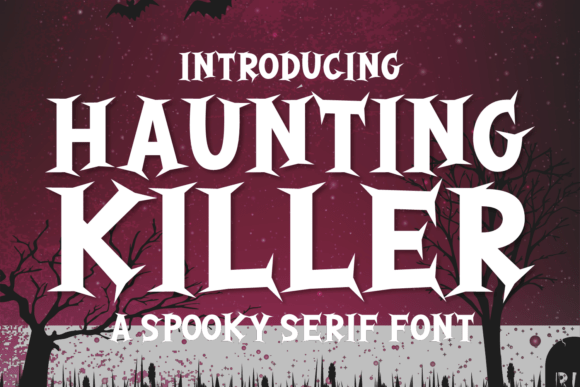
Unleash the Spooky Charm of Your Designs
Remember the thrill of staying up late as a child, pouring over a favorite book under the dim glow of a nightlight? The words on the page seemed to come alive, transporting you to a world of wonder and magic. As a designer, you want to recreate that sense of enchantment in your work, don’t you?
That’s where the Haunting Killer Font comes in – a design delight that combines spooky charm and whimsical creativity to add an extra layer of expressiveness to your projects. Whether you’re designing book covers, comics, or posters, this versatile font is sure to leave a lasting impression. With its quirky flair, the Haunting Killer Font is a must-have addition to any designer’s toolkit, helping you to create projects that truly dazzle and stand out.
Haunting Killer Font Key Features
- Font Styles: Haunting Killer Font includes 6 unique font styles: Regular, Italic, Bold, Bold Italic, Shadow, and Outline.
- Unique Characteristics: The font features a haunting and eerie design, perfect for horror-themed projects, with unique characters and ligatures that add to its spooky atmosphere.
Haunting Killer Font Review
First impressions of “Haunting Killer Font” are intense and dramatic, making it perfect for projects that require a spooky atmosphere. ✨ The bold, gothic-inspired letters evoke a sense of mystery and foreboding, which can be a great fit for horror-themed designs or websites.
Here are some of the font’s strengths:
- Unique and memorable design that grabs attention
- Highly customizable, with options for adjusting letter spacing and line height
- Wide range of languages supported, making it suitable for international projects
- May not be suitable for large blocks of text, as it can be difficult to read
- Lack of ligatures or contextual alternates can make it look less refined in certain situations
- Some users may find the font too dramatic or over-the-top for everyday use
Overall, I’d say “Haunting Killer Font” is a solid choice for designers looking to create a bold, attention-grabbing impression. While it may not be perfect for every project, it’s certainly a unique and memorable option that can add a touch of drama to your designs. ⚠️ Just be sure to use it thoughtfully and in context.
Use the Haunting Killer Font for attention-grabbing headings, titles, and quotes. Experiment with different font sizes and colors to create a striking visual impact.
Use the Haunting Killer Font for titles, headings, and quotes in your designs. Experiment with different font sizes, colors, and styles to create a unique and captivating visual effect.
Use the Haunting Killer Font for headings, titles, and quotes in your presentations or documents. Experiment with different font sizes and colors to create a professional and eye-catching visual impact.
Tips for Getting the Most Out of Haunting Killer Font
Use the Haunting Killer Font in combination with other bold fonts to create a striking visual effect.
Experiment with different font sizes, colors, and styles to create a unique and captivating visual effect.
Use the Haunting Killer Font for attention-grabbing headings, titles, and quotes to draw the viewer’s attention.
Use the Haunting Killer Font for:
Attention-grabbing headings and titles
Quotes and inspirational phrases
Titles and headings in presentations and documents
Branding and marketing materials